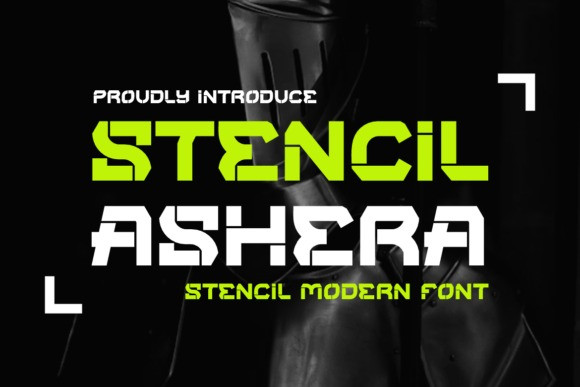
Stencil Ashera Font
Designer: IqsiartStudio
Stencil Ashera Font is a cool and bold display font. Add it to your creative projects and enjoy the results!